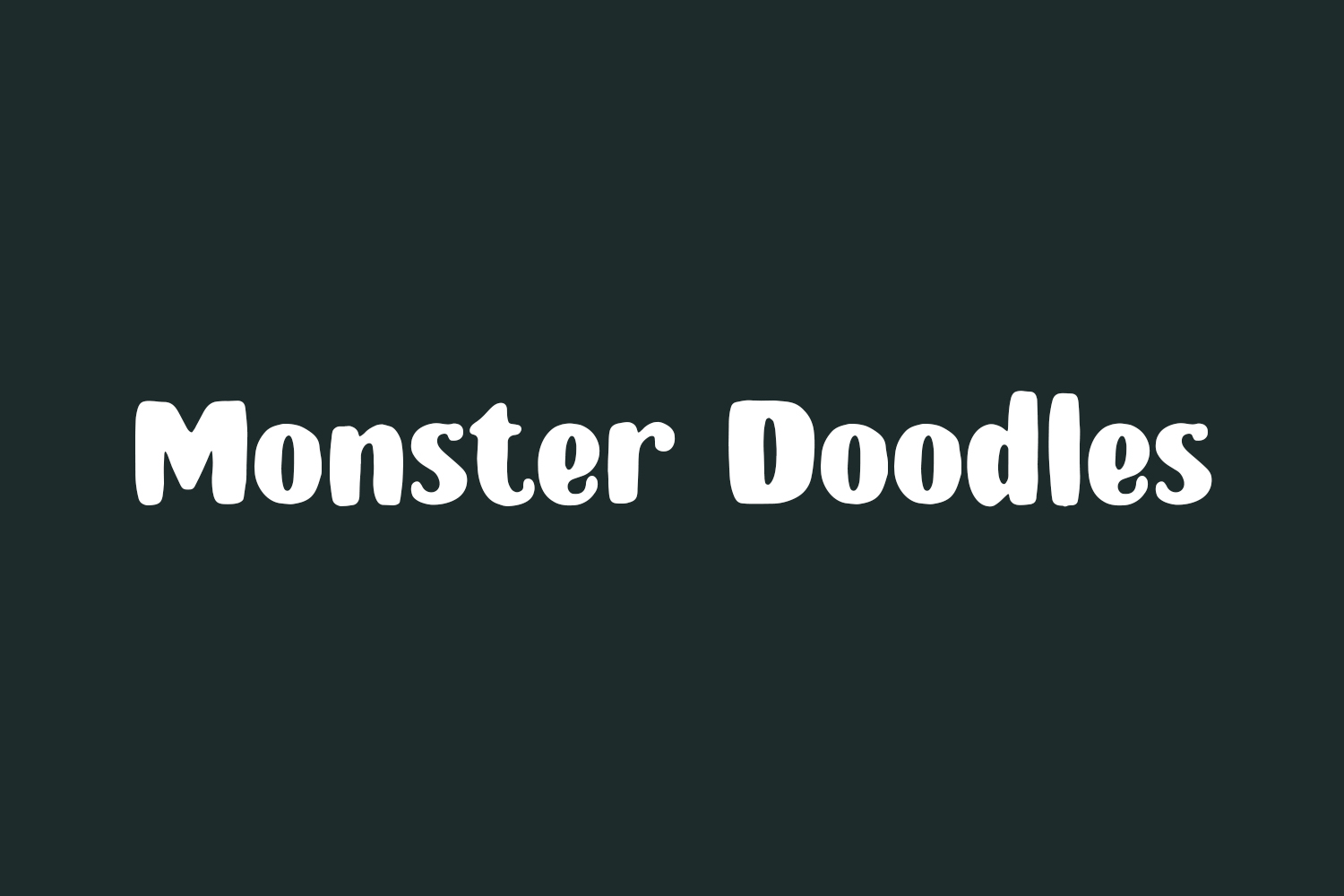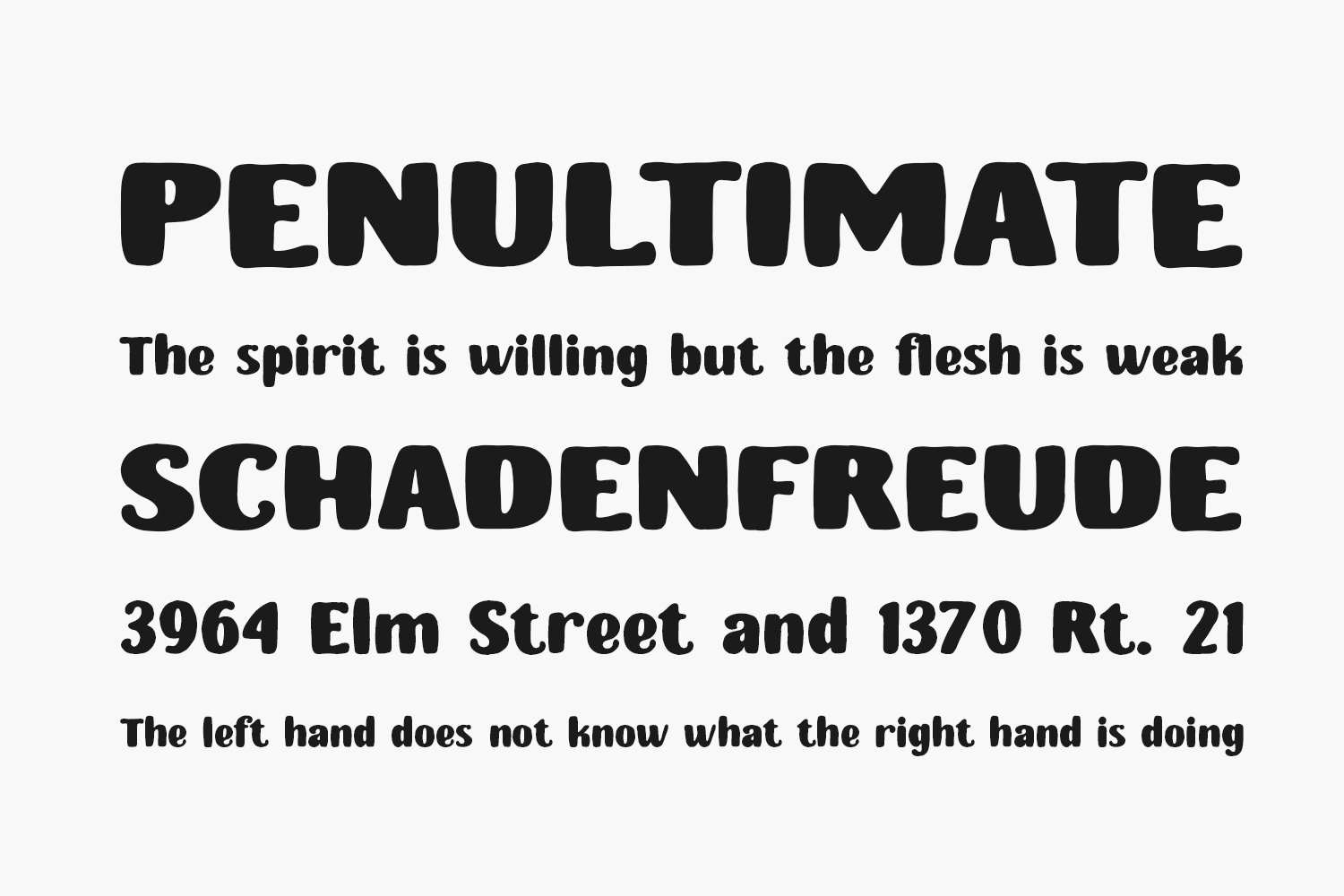
Discover the playful charm of Monster Doodles Free Font, a hand-drawn font featuring bold letterforms. Perfect for cartoon-themed designs, children’s games, or any project needing a whimsical and nostalgic flair. Make your creations stand out with this delightful font. Download the font for free if you need it for personal use or purchase the full version for commercial use.
Designed by Letterhend Studio